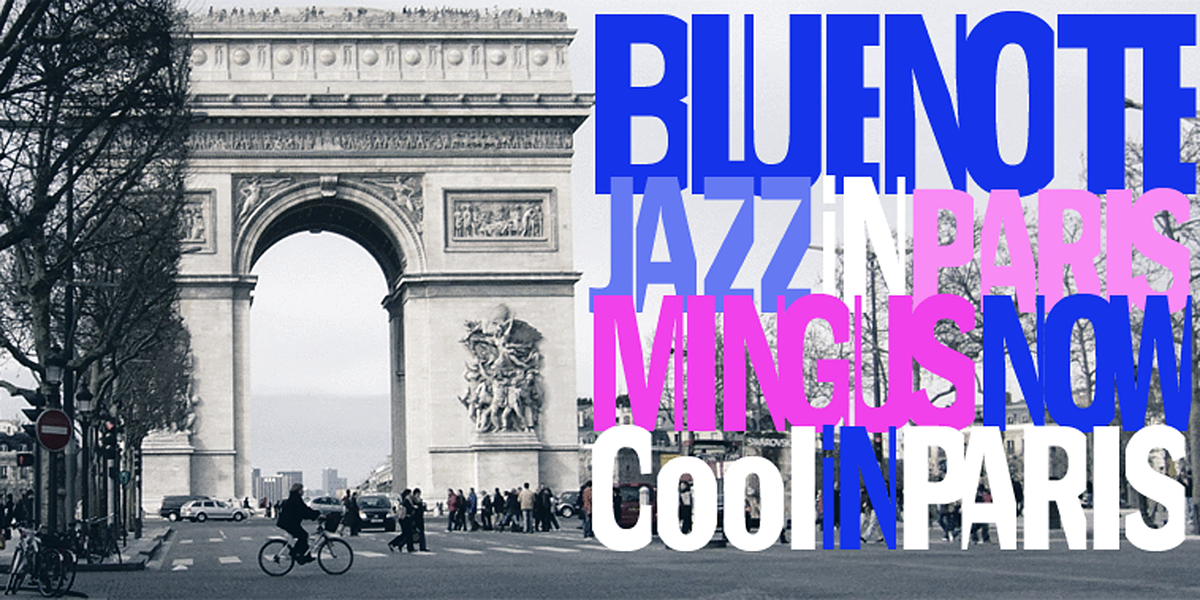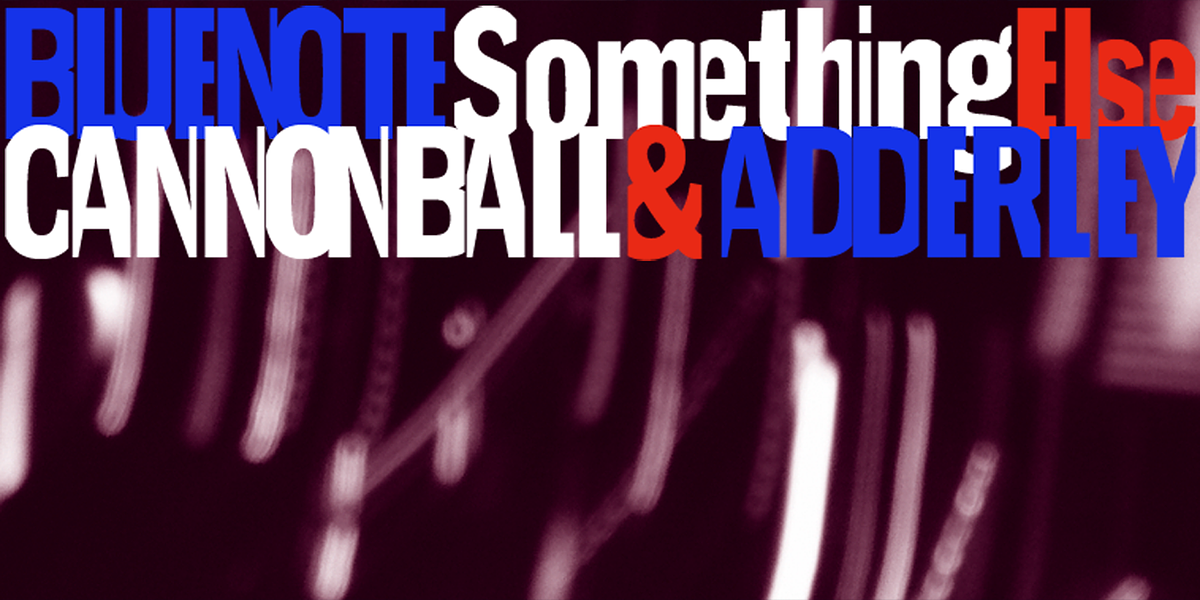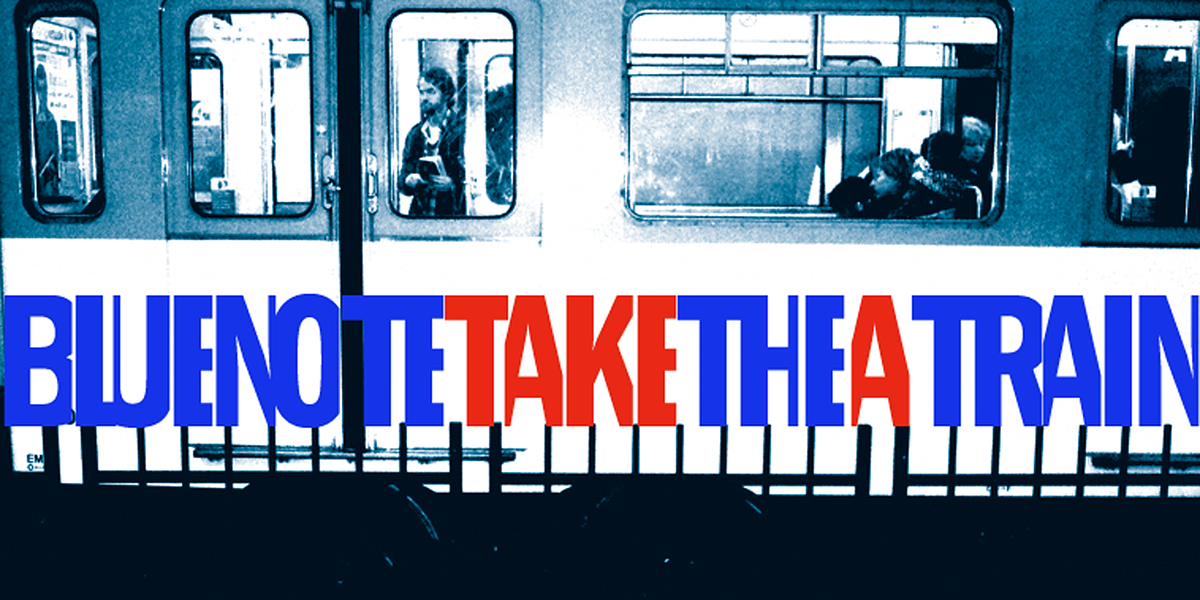
BlueNote
BlueNote is a geometric sans-serif font inspired by the typography used on classic Blue Note jazz record covers from the 1960s and 70s. The designer, Gert Wiescher, recreated the fragmented, ribbon-like letterforms found on those iconic albums.